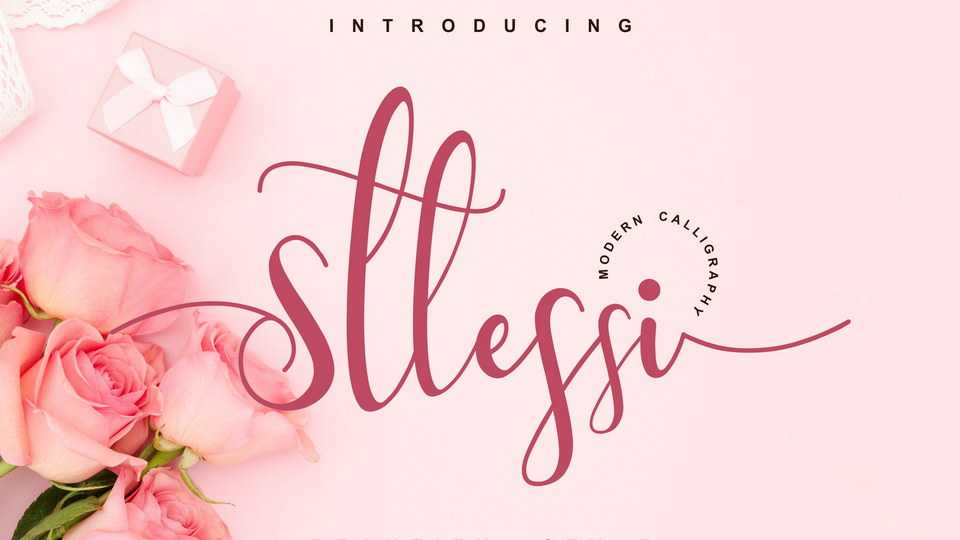
Sttessi Script Font › Fontesk – Download Grátis
Download Sttessi font, a romantic calligraphy typeface with a delicate and elegant flow. Its distinct and well balanced look is perfect for product packaging, mugs, quotes, shopping bags, t-shirts, book covers, cards and other lovely projects.
Designer: Integritype Studio